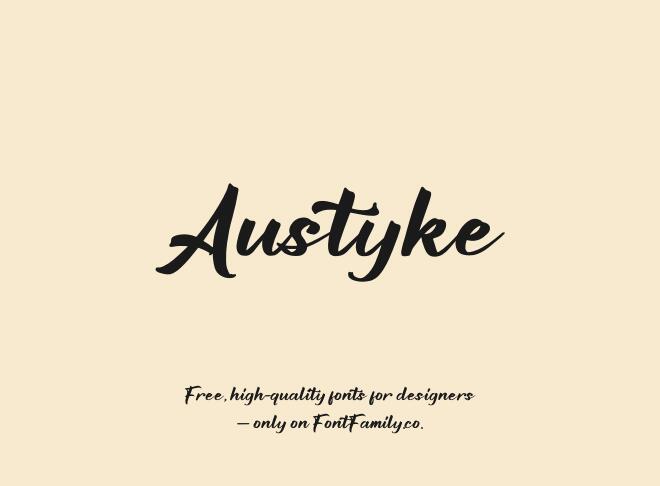
Austyke Font
Introducing the Austyke Font, a modern and versatile handwritten typeface from Design Studio. With its sleek lines and fluid style, Austyke Font is an ideal choice for designers looking to bring a touch of sophistication to their work. Its unique modern design sets it apart from other fonts, making it a great option for branding, logo designs, and digital media. This font is easy to read, making it perfect for both large and small text. Its unique character and style make it reminiscent of handwriting, adding a personal touch to your designs. The Austyke Font is a free font for personal use, making it an excellent choice for designers on a budget. Its modern, yet timeless design ensures it will stay relevant and attractive in the ever-changing world of design.
Categories | Handwritten Modern Display |